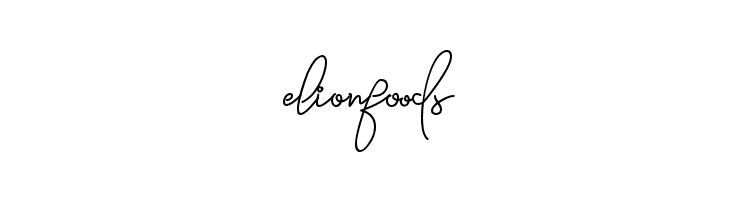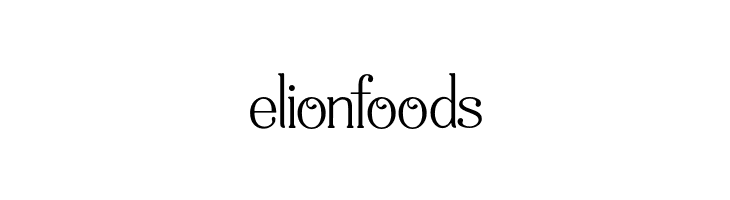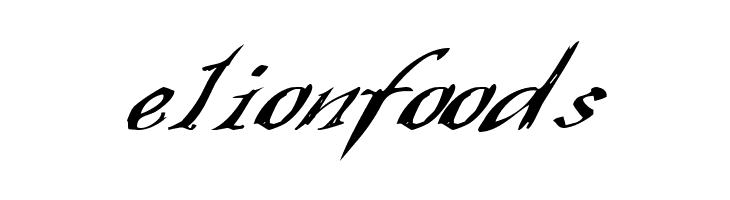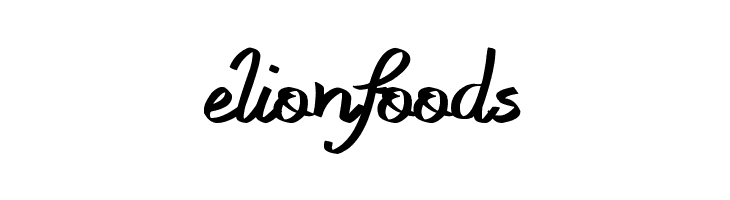
( Roger White - web.archive.org/web/20120416090521/www.rogersfonts.org.uk/ )
A classic serif font with elegant strokes and refined proportions.
( Roger White - web.archive.org/web/20120416090521/www.rogersfonts.org.uk/ )
A bold, classic serif font with strong strokes and pronounced serifs.
( Roger White - web.archive.org/web/20120416090521/www.rogersfonts.org.uk/ )
A bold, italic serif font with a classic and elegant style.
( Roger White - web.archive.org/web/20120416090521/www.rogersfonts.org.uk/ )
An elegant italic serif font with smooth curves and a refined, classic style.
( Jonathan S. Harris - www.tattoowoo.com )
A bold, dynamic script font with fluid, cursive letterforms.
A sophisticated script font with elegant loops and swirls, perfect for luxurious designs.
An elegant and playful decorative font with ornate uppercase letters and stylish lowercase characters.
A refined, high-contrast typeface with elongated strokes and elegant curves.
( Fonts by Forberas Club )
A playful, hand-drawn font with rounded, whimsical letterforms.